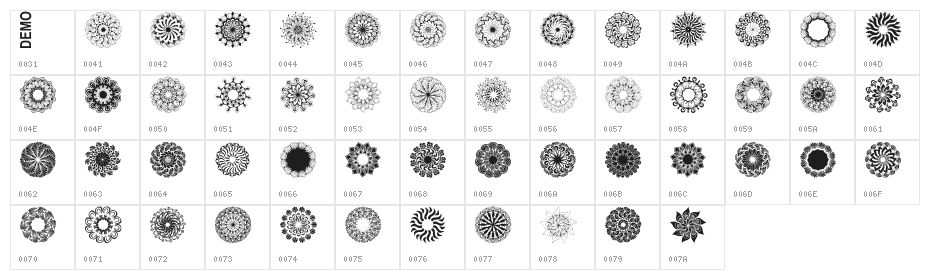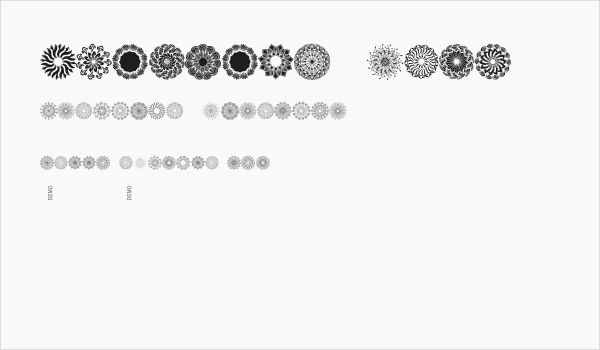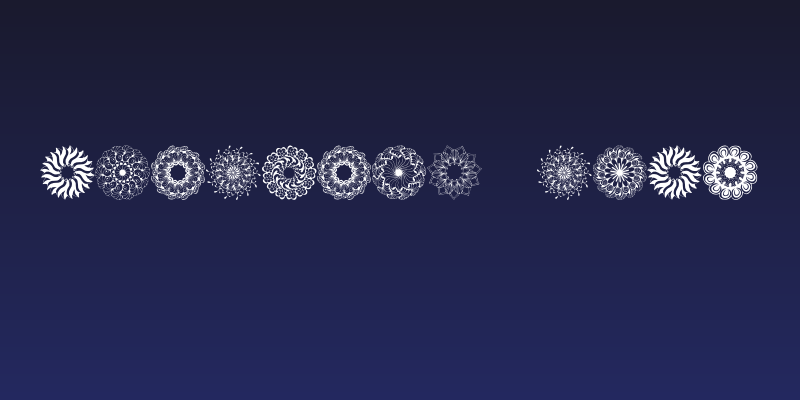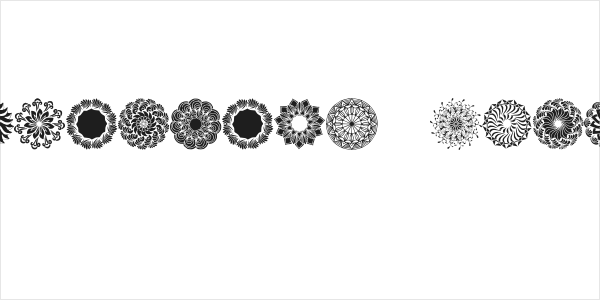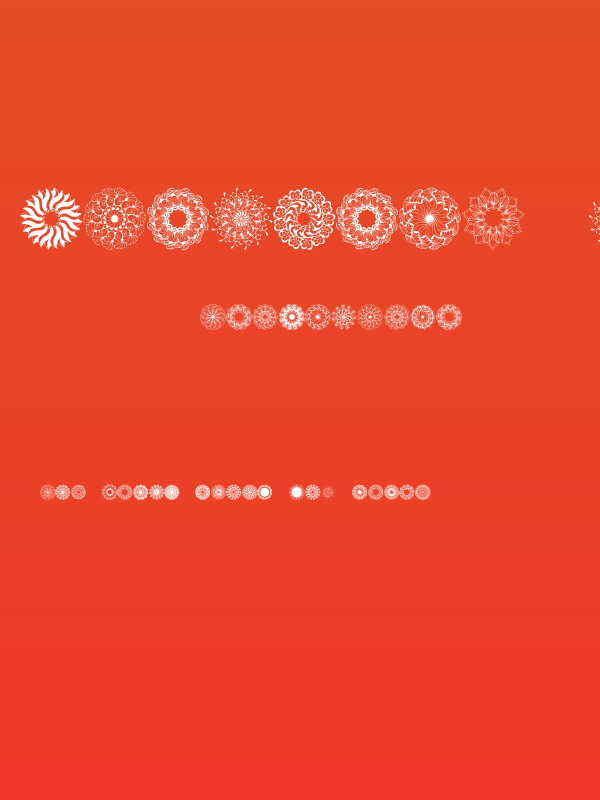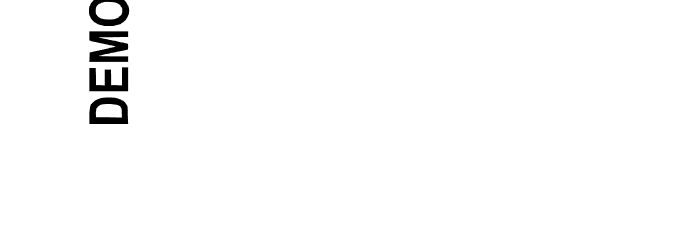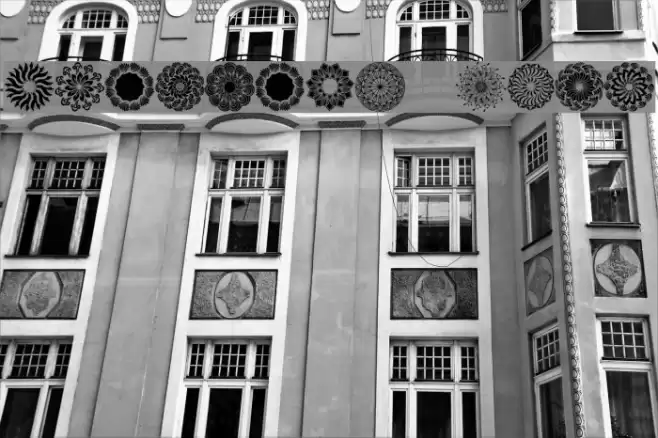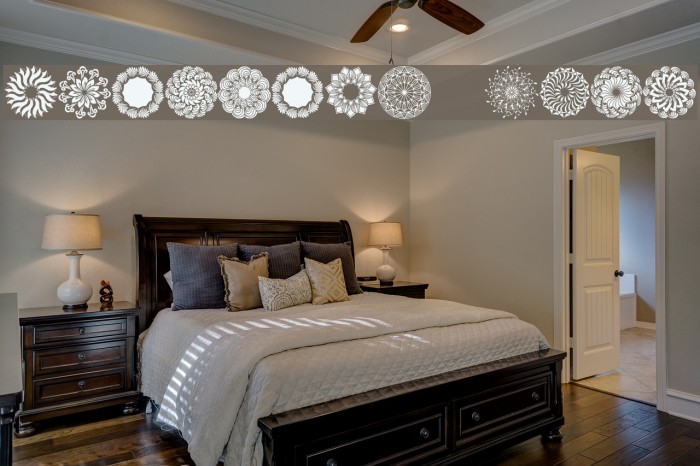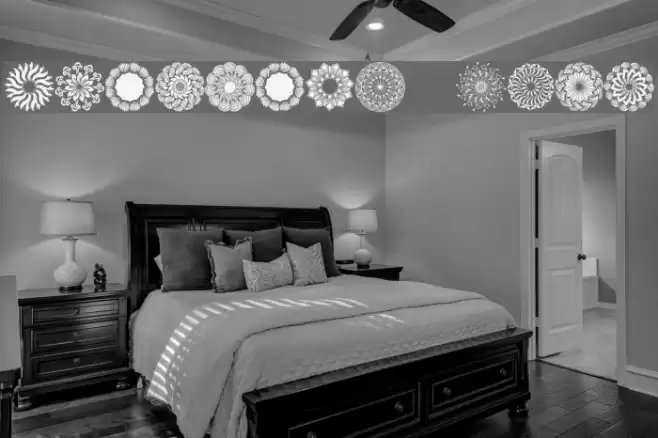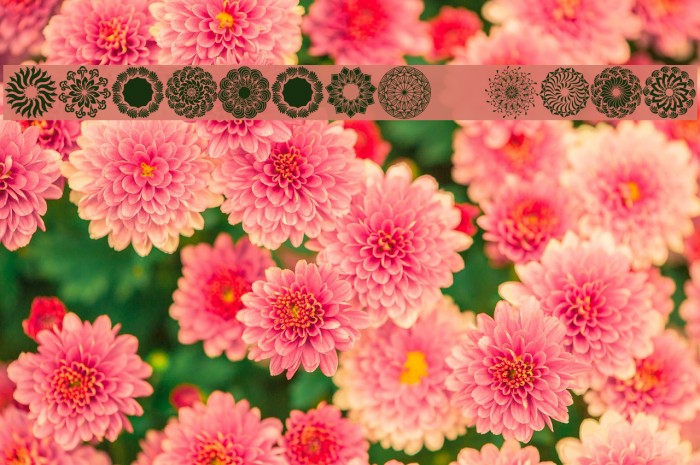
Mandings Demo Font
Mandings Demo Description
This is a decorative dingbat font featuring a wide variety of intricate mandala and floral-inspired circular patterns, each unique in design and detail. The characters are highly ornamental, with complex line work and symmetrical arrangements, suitable for embellishing creative projects.
| Overall Style | Decorative, Ornamental |
| Use Case | Decorative elements, embellishments, borders, icons. |
| Proposed Projects | Invitations, greeting cards, scrapbooking, decorative borders, digital art, logo embellishments, textile patterns. |